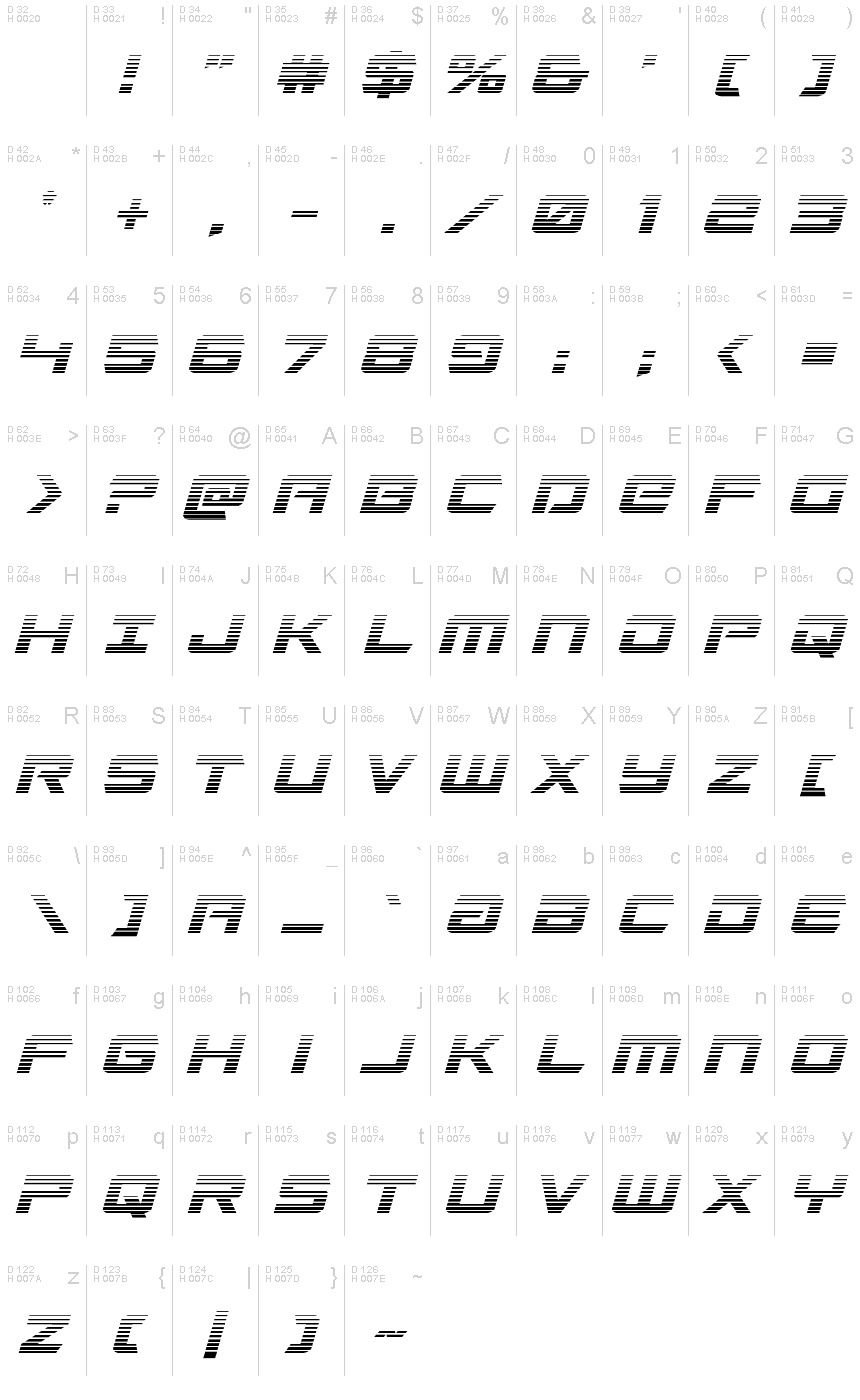
Captain Falcon Gradient Italic
Meet Captain Falcon Gradient Italic, a captivating addition to the futuristic display fonts family. Crafted by the talented Iconian Fonts, this bold and extra-expanded typeface showcases a striking gradient effect that will leave your designs soaring to new heights. Perfect for projects that require a strong and eye-catching presence, this font is well-suited for sci-fi movie posters, futuristic video game titles, or even cutting-edge technology websites. With its commanding style and unique design, Captain Falcon Gradient Italic is ready to take your creative endeavors on an exhilarating journey into the future.